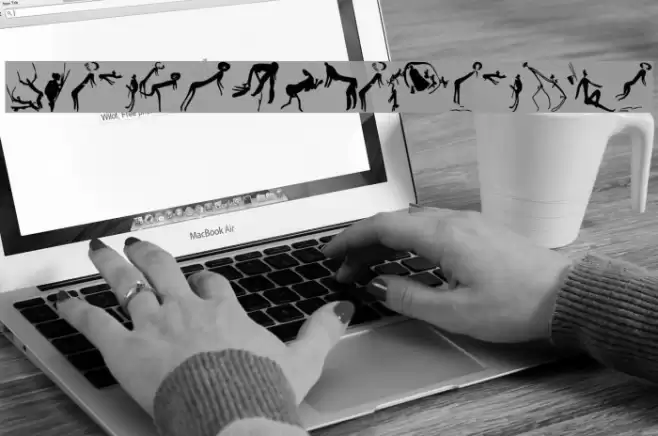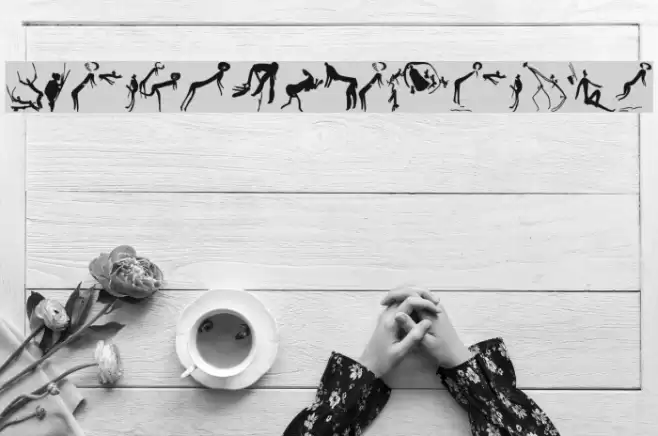
AfriqueDrawings Font
AfriqueDrawings Description
A highly decorative font inspired by African rock art and cave drawings, featuring stick-figure humans and animals in dynamic poses. Each character is represented by a unique pictogram, evoking ancient storytelling and tribal aesthetics.
Decorative font mimicking African cave drawing motifs from Uncategorized fonts.
- Proposed Projects: Ethnic-themed posters, cultural event branding, educational materials about history or anthropology, art installations.
- Overall Style: Primitive, Ethnic, Artistic
- Use Case: Logos, Posters, Art projects, Thematic headlines